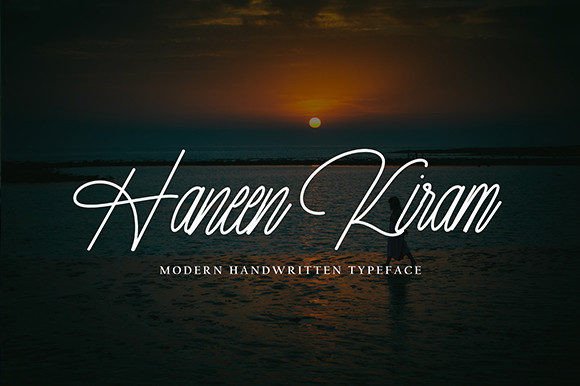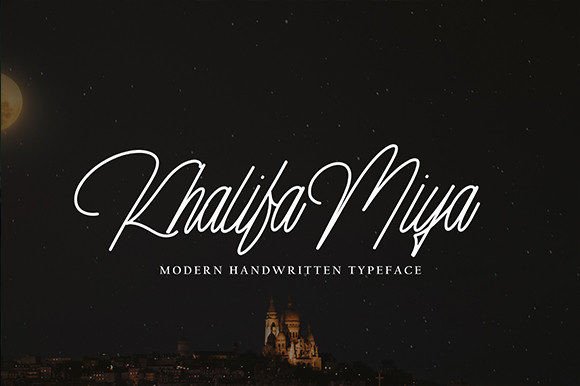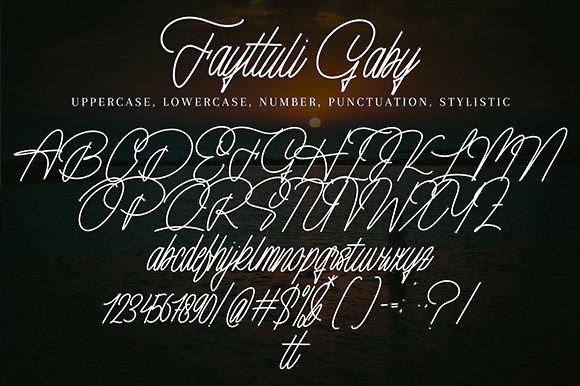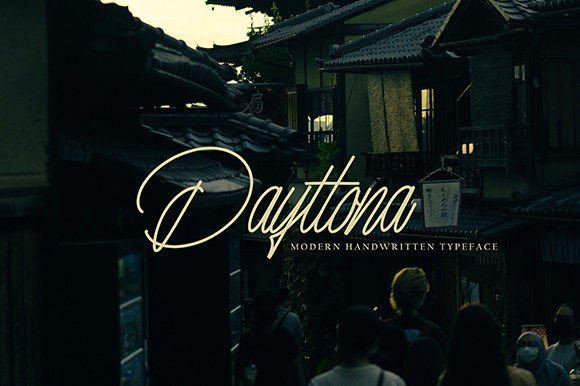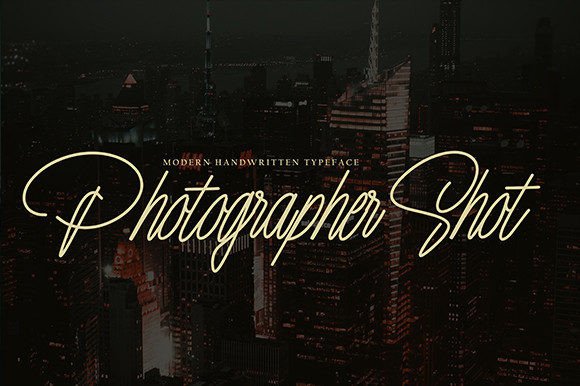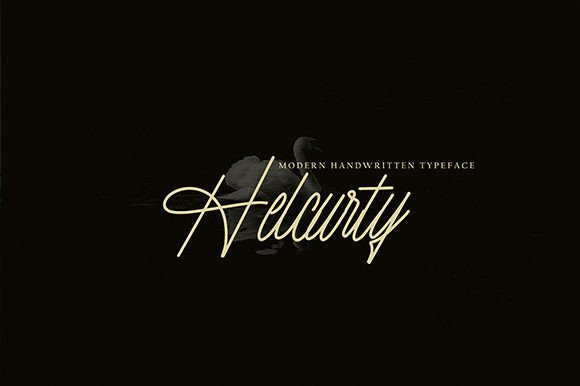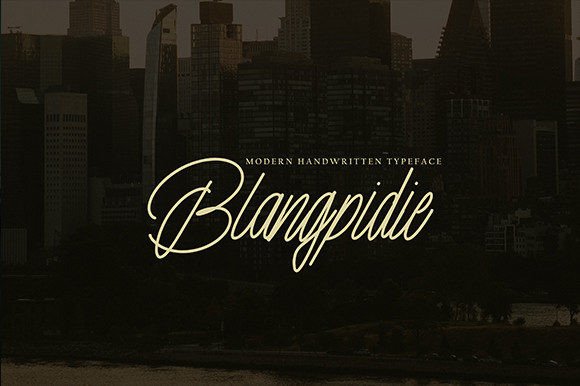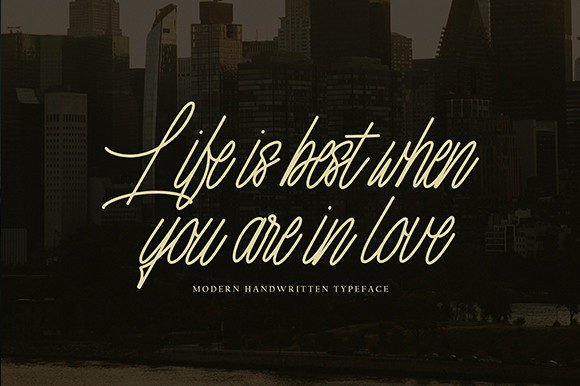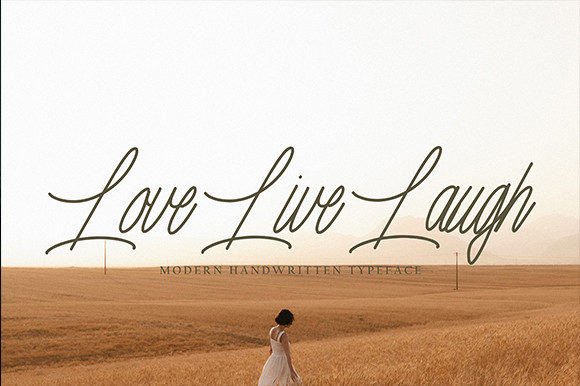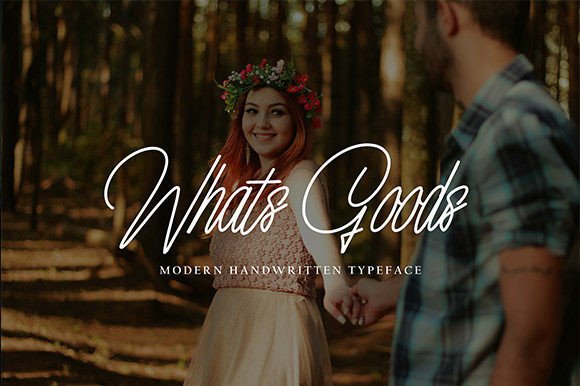
Fayttuli Gaby Font
Fayttuli Gaby Font: Dazzling Script for Elegant Designs
“Fayttuli Gaby” is a captivating script font that adds a touch of elegance and charm to your designs. Its refined style makes it perfect for various creative projects, elevating them with sophistication.
Key Features of Fayttuli Gaby Font
• Dazzling Style: Fayttuli Gaby brings a refined and detailed look to designs.
• Versatile Use: Suitable for many projects, from branding to invitations.
• Visual Appeal: Creates a captivating atmosphere in typography.
Elegant Invitations and Stationery
Fayttuli Gaby’s sophisticated style is ideal for creating stunning wedding invitations and special event materials.
Use Fayttuli Gaby to design refined logo designs and branding materials that convey elegance and charm.
Luxury Packaging and Labels
The font’s detailed look makes it perfect for creating high-end packaging and product labels.
Why Choose Fayttuli Gaby Font?
Fayttuli Gaby offers more than just beautiful letters. Here’s why it stands out:
• Enhances overall aesthetics with its meticulously crafted script
• Conveys a sense of sophistication and visual appeal
• Adds a touch of timeless beauty to designs
By using Fayttuli Gaby, you open up new design possibilities. Its elegant style works well in many contexts, from greeting cards to poster designs. The font’s ability to convey refinement can inspire creative ideas and help you approach projects from a sophisticated perspective.
Fayttuli Gaby in Modern Design Trends
Fayttuli Gaby aligns perfectly with contemporary design trends that favor elegant simplicity. Its dazzling script adds a personal touch while maintaining a luxurious feel, making it particularly effective for brands targeting upscale markets or those aiming for a refined, modern image.
If you’re looking for a font that combines dazzling beauty with versatility, Fayttuli Gaby is an excellent choice. It’s perfect for adding a touch of sophistication to your work, especially for projects that need an elegant, captivating feel.
Explore how Fayttuli Gaby can transform your designs. From social media graphics to luxury branding, this font brings a refined and enchanting quality to your creations.